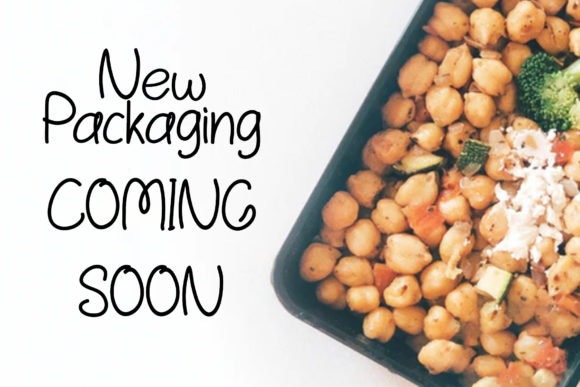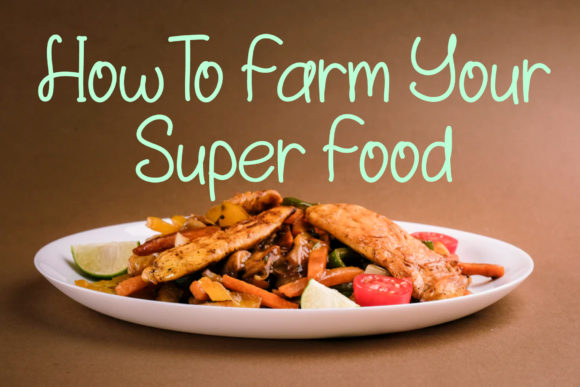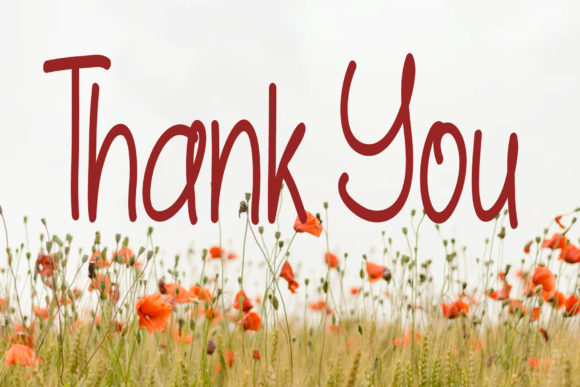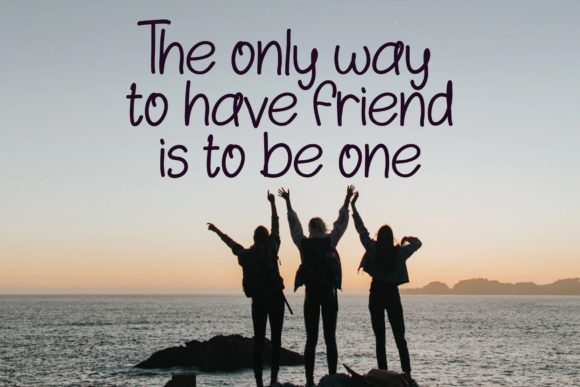
Hello Old Friend Font
About Hello Old Friend Font
Hello Old Friend is an elegant and delicate script and handwritten font. Fall in love with its incredibly versatile style and use it to create spectacular designs! You can use this font on wedding invitations, thank you cards, quotes, greeting cards, logos, business cards and every other design which needs a simple and fun touch.